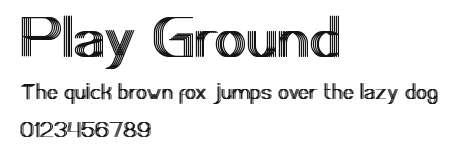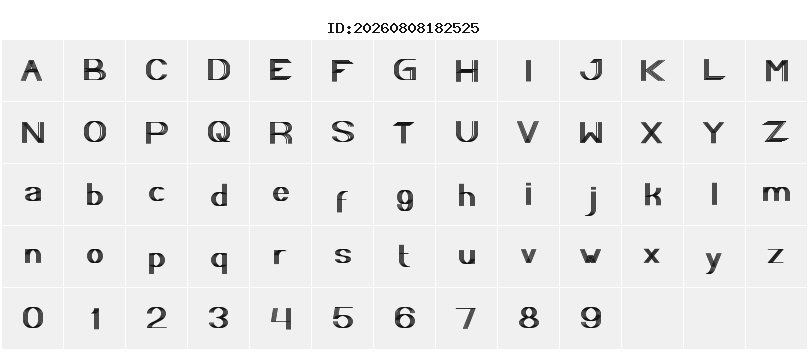
Play Ground Preview
• Font Name: Play Ground
About Play Ground.ttf
Play Ground.ttf is a modern, elegant sans-serif font designed for ultimate readability and visual harmony. Perfect for branding, headlines, web design, and print materials.